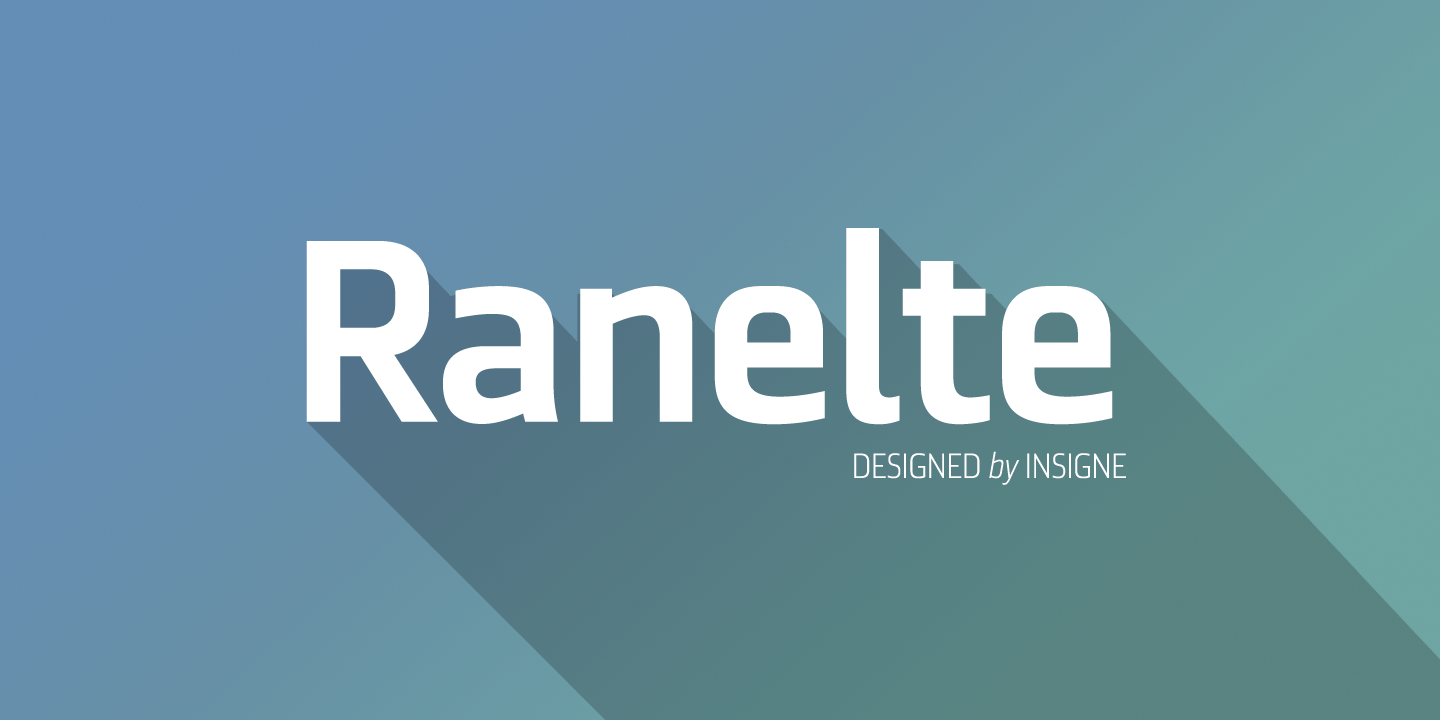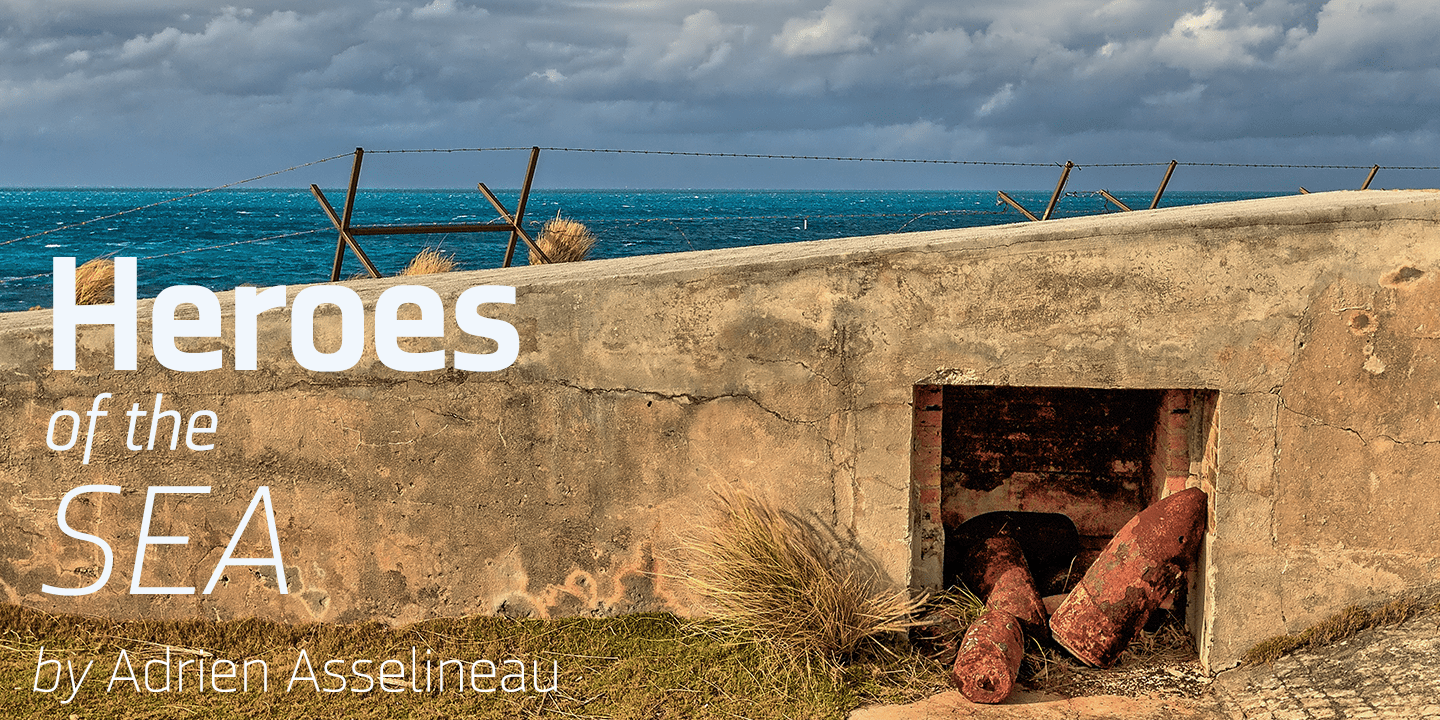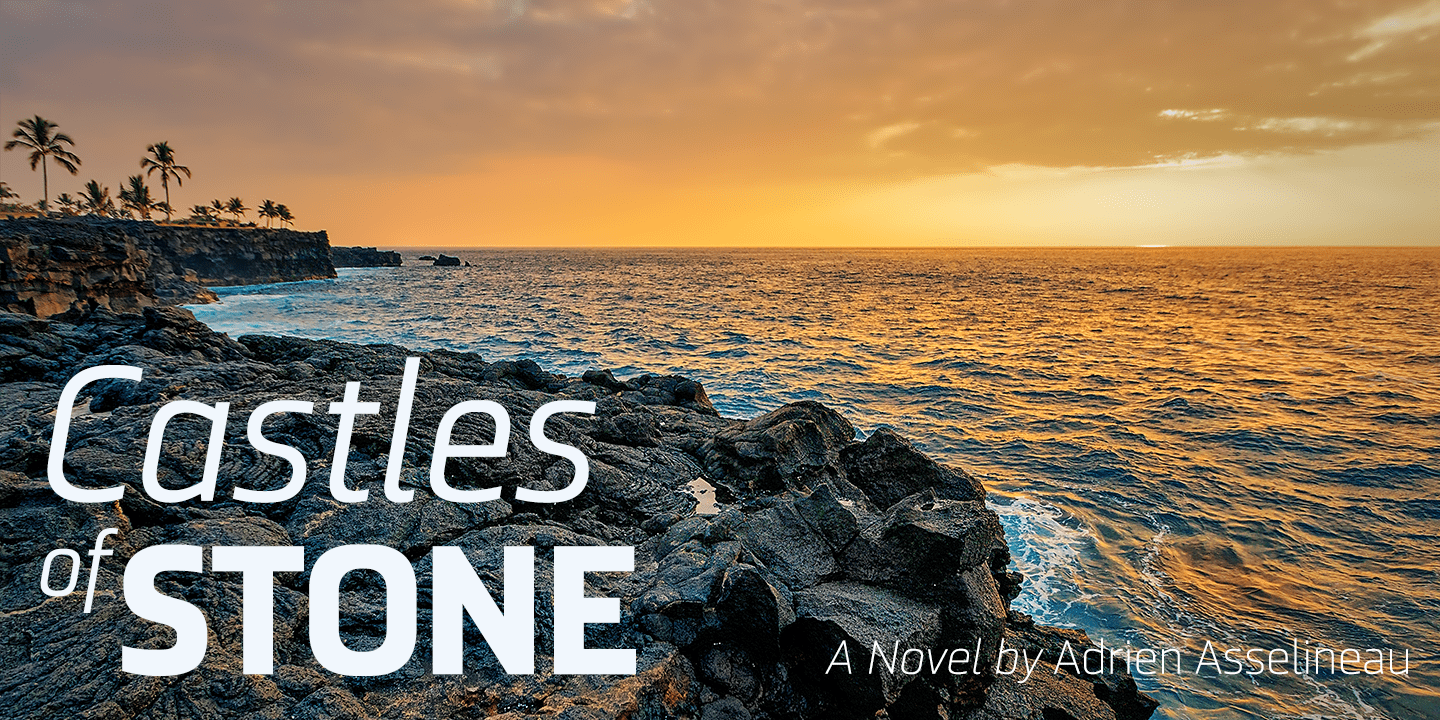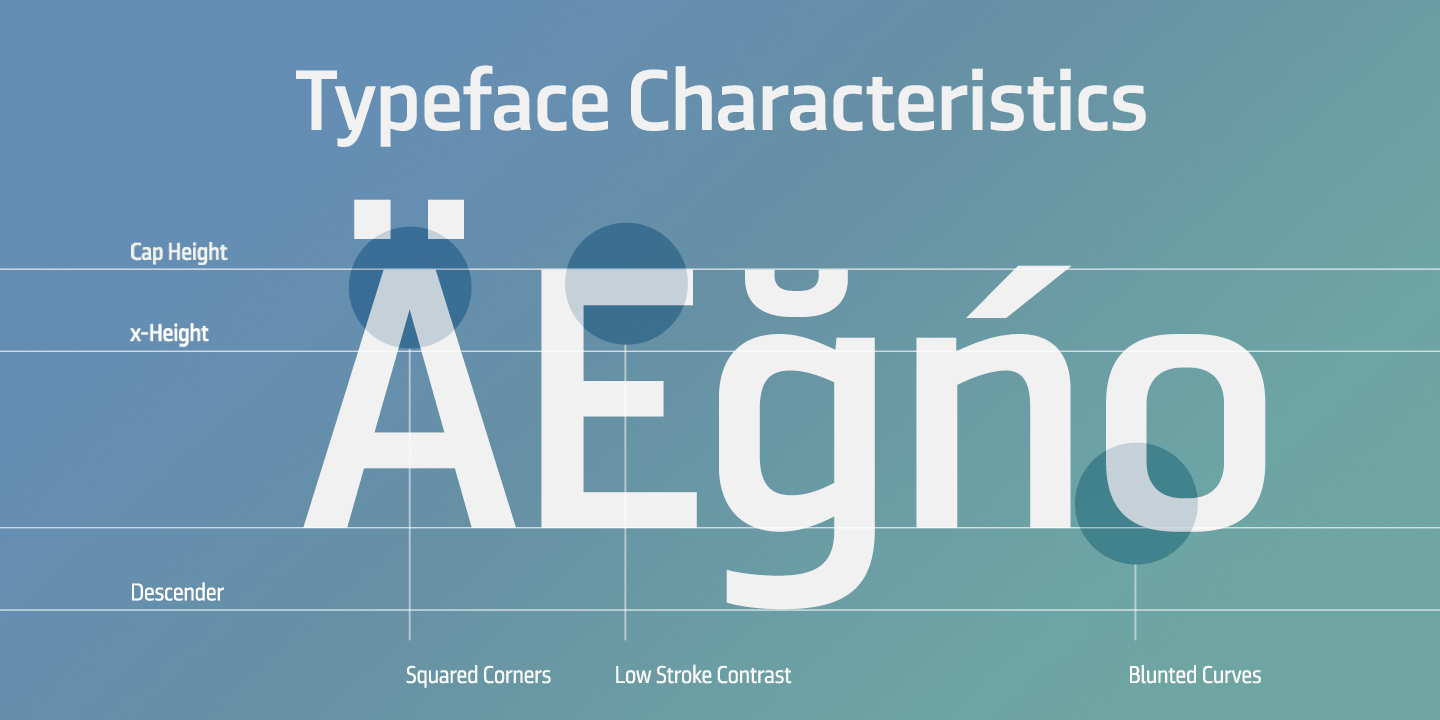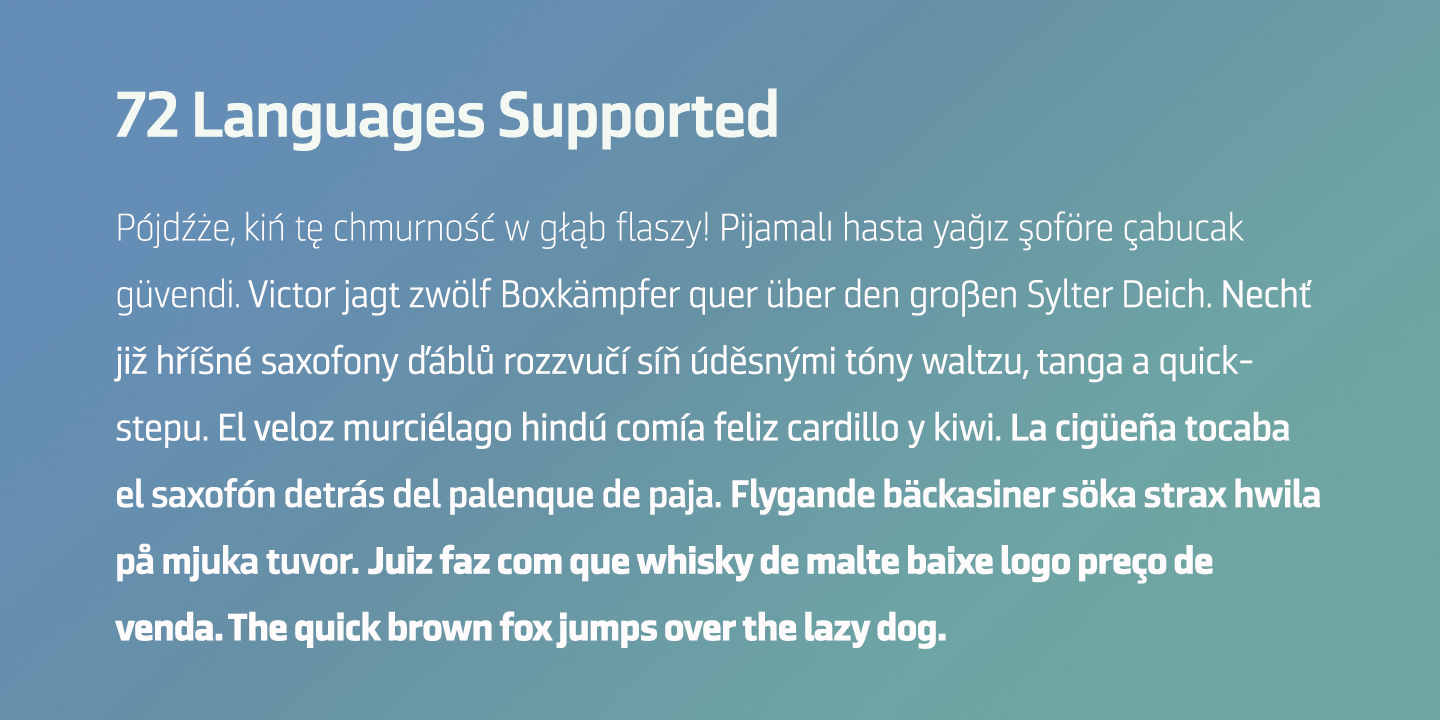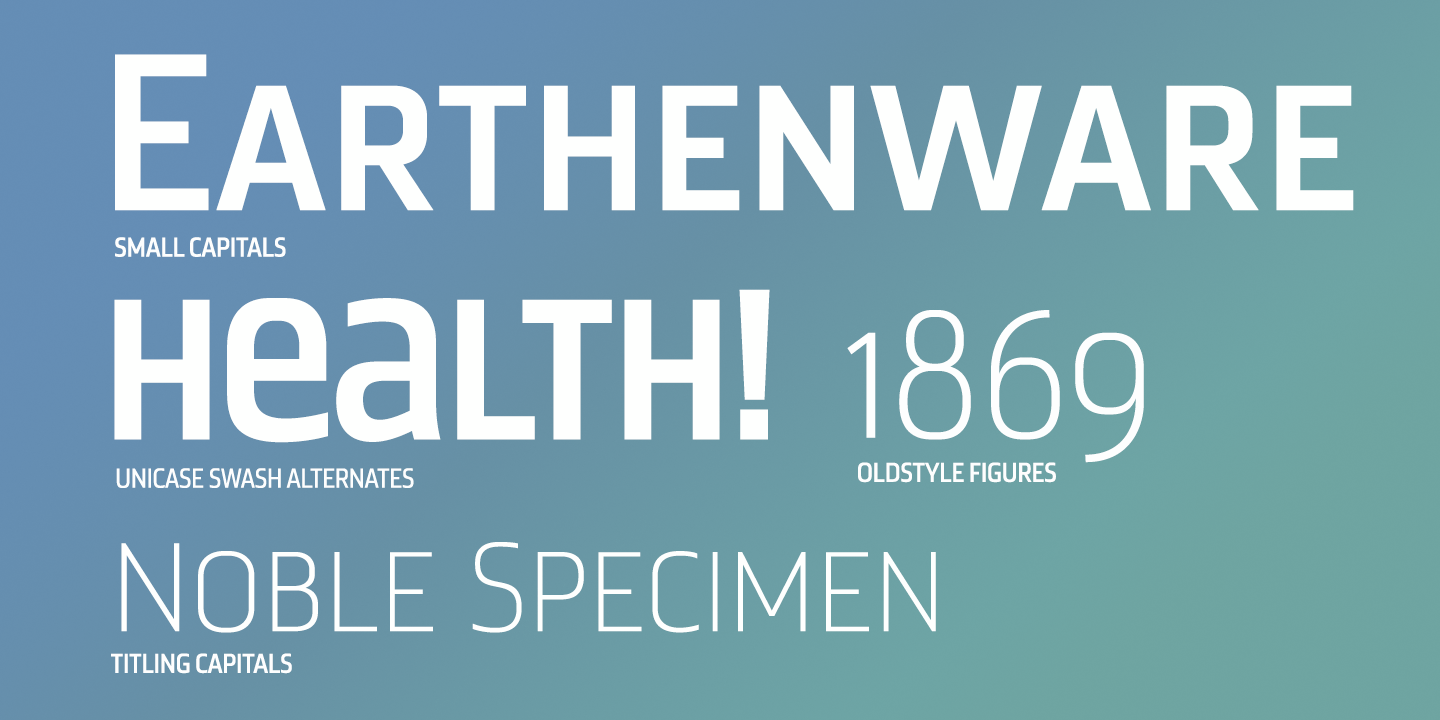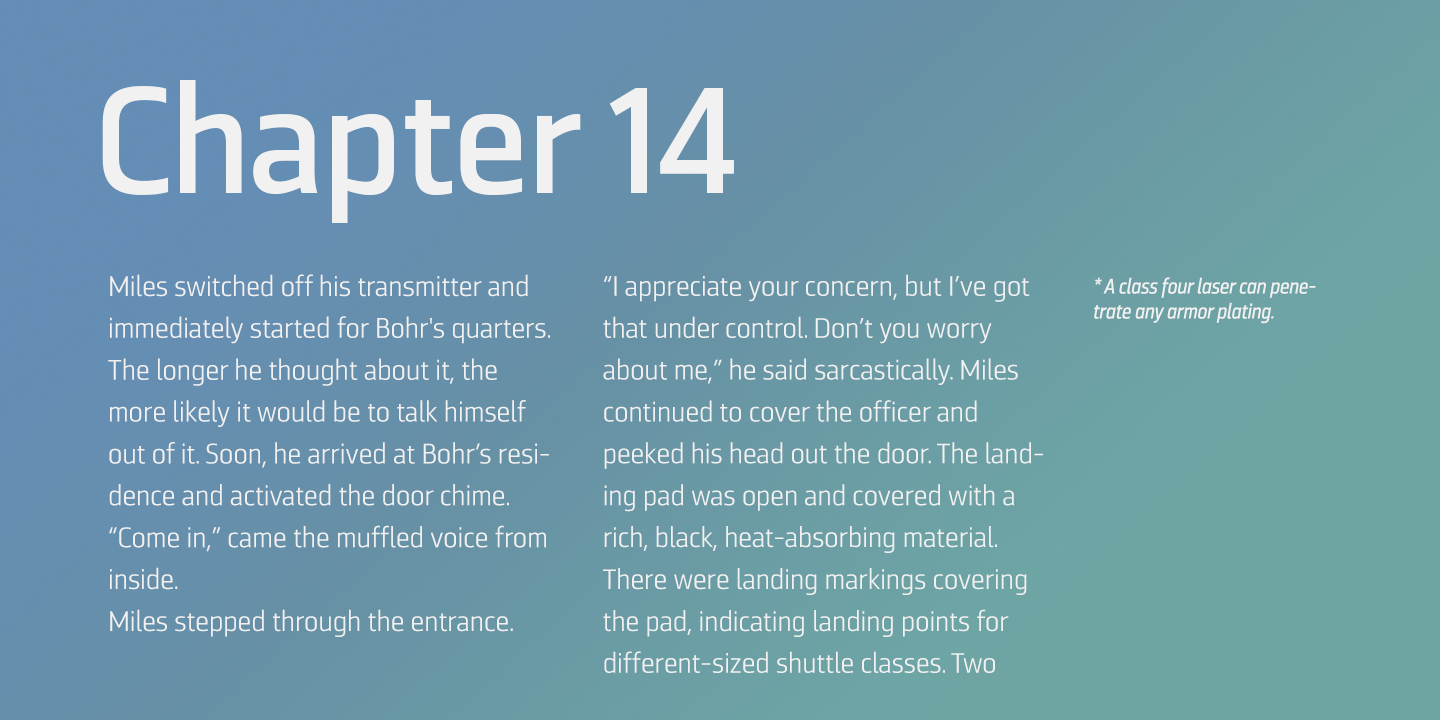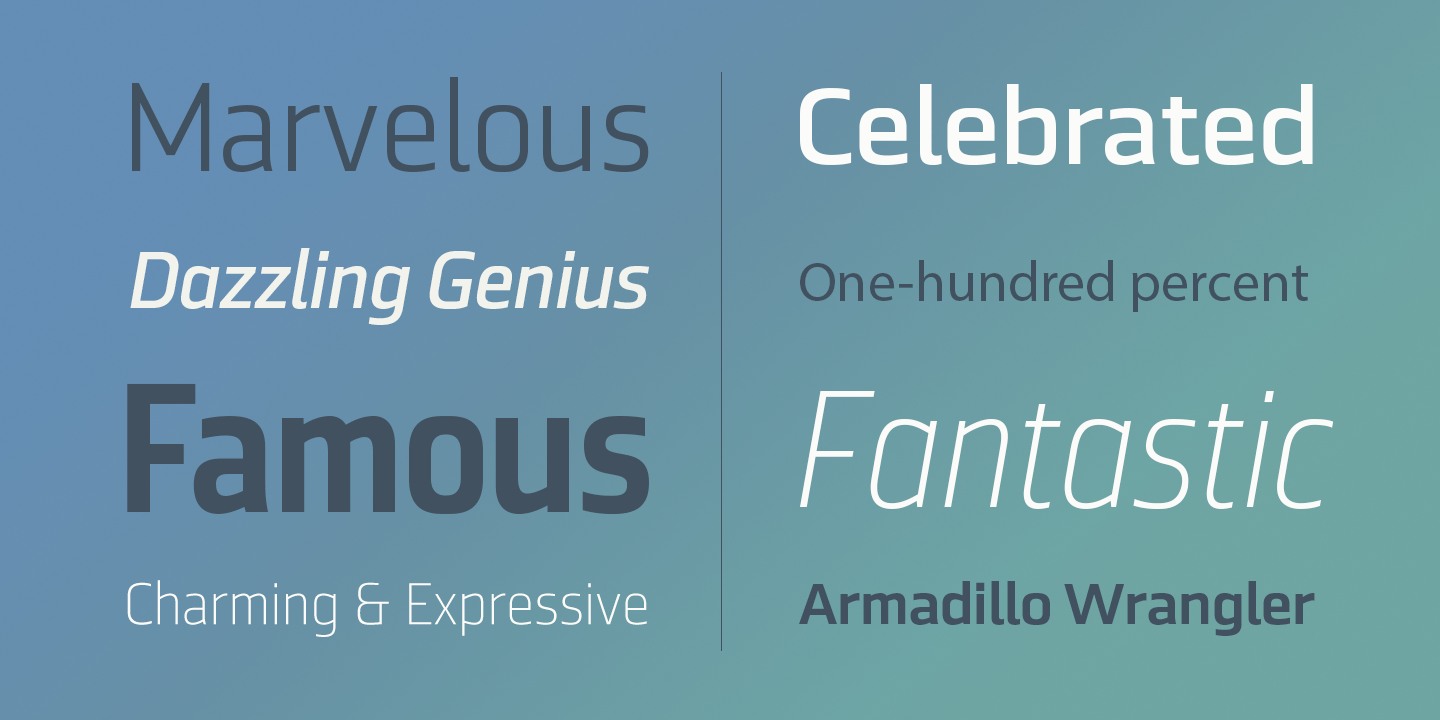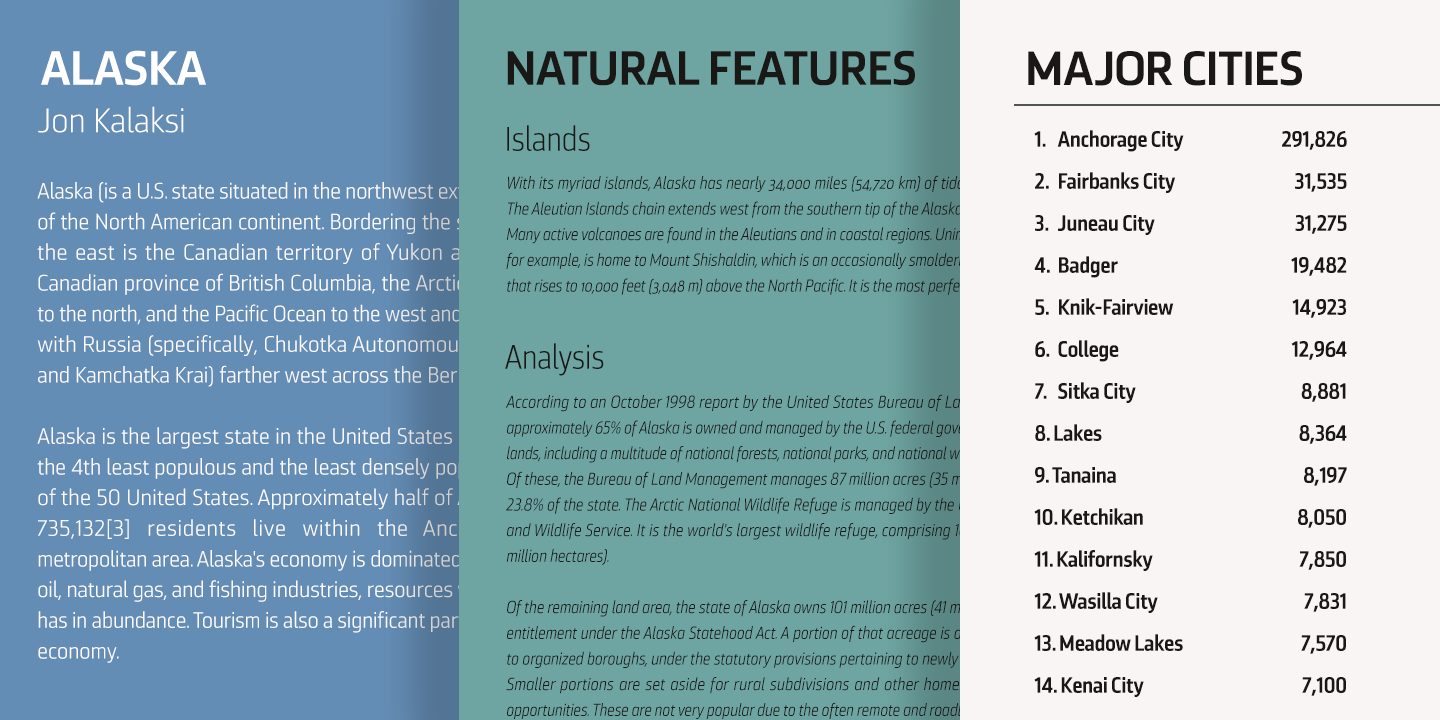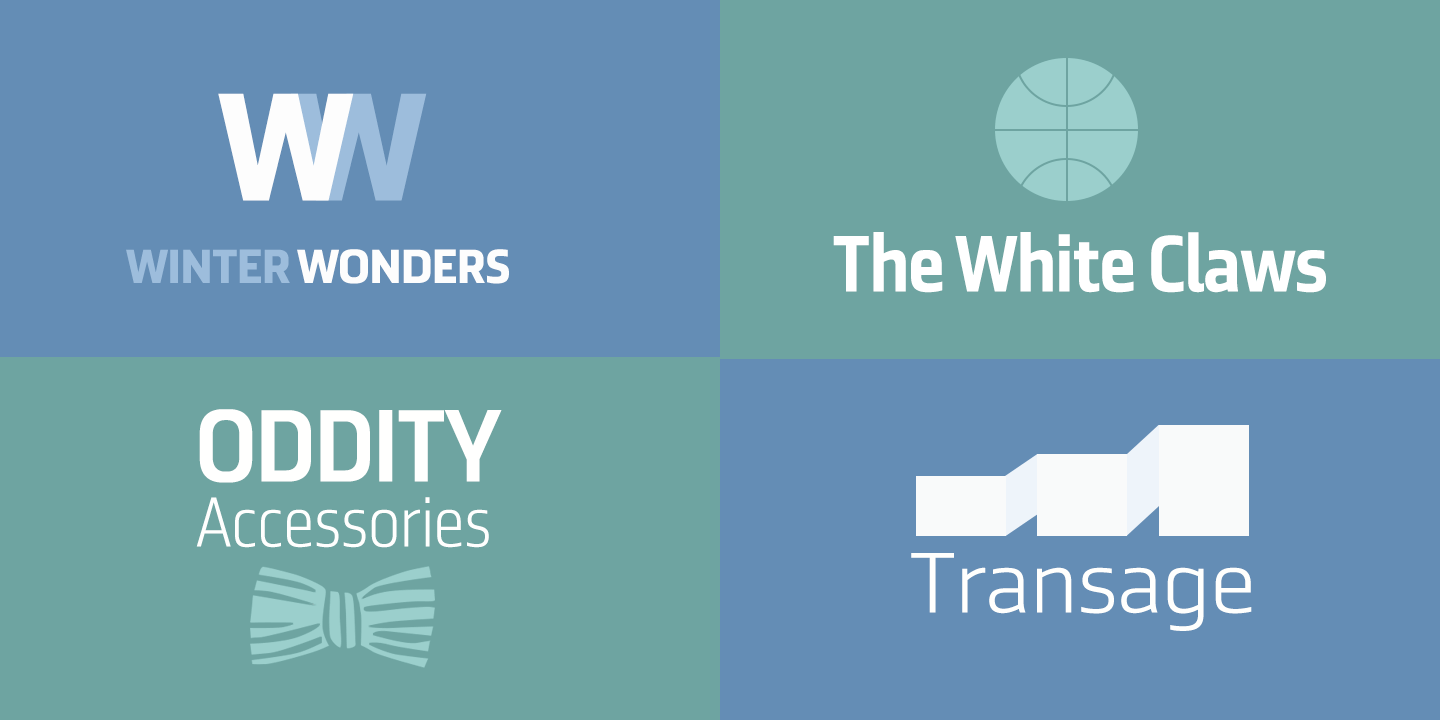
Ranelte
Font Family by Insigne
While it pays homage to the enduring DIN series of the early-20th century, the new Ranelte is far from outdated. The classic style happily connects with its more modern side, incorporating a more pronounced curve than many of its contemporaries do. This accentuated curve helps pad the type against being cold or overly technical, especially with its inherent semi-modular form and geographic feel. In short, you end up with a good vibe at the intersection of high-tech and friendly.
A versatile typeface, Ranelte is designed for headline use as well as print and web copy. Within this family's three widths and eight weights (along with italics), the letter proportions remain easily readable through their tendency toward equalisation, while still avoiding strict monospacing. The typeface also features sophisticated typographical help in the form of OpenType features. Included in the set are case-sensitive types, fractions, super- and subscript characters, and stylistic alternates. It comes using a comprehensive array of old style and lining figures. All features comprehensively cover the Latin-based languages.
Thinking about it again, a classic may never go out of style, but that doesn't mean you can't improve on it. A little adjustment can have a beauty all its own. So discover the tuning of Ranelte, and enjoy all the new things you can do with a classic.